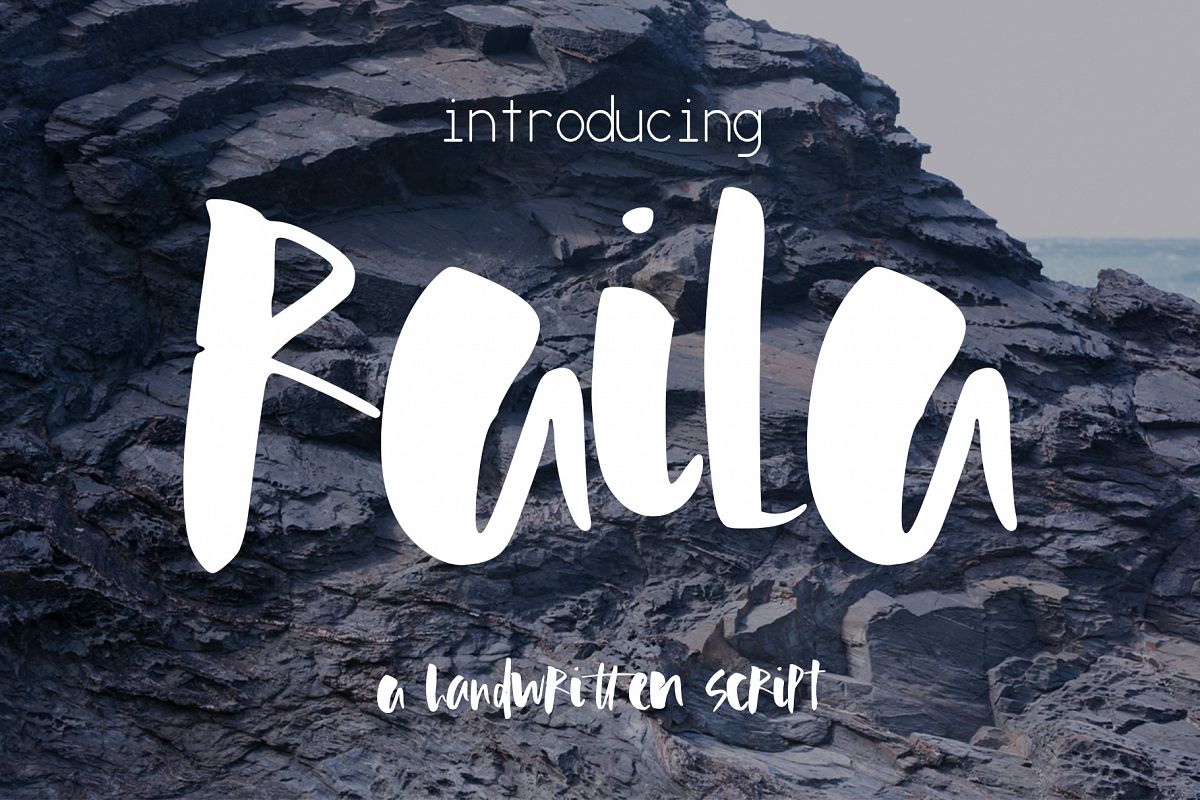
Raila Font
Introducing Raila, a gorgeous elegant script.?
Perfect for any graphic and logo designs, wedding and birthday invitations.
Raila font contains uppercase & lowercase characters, numbers and punctuations with several ligatures.